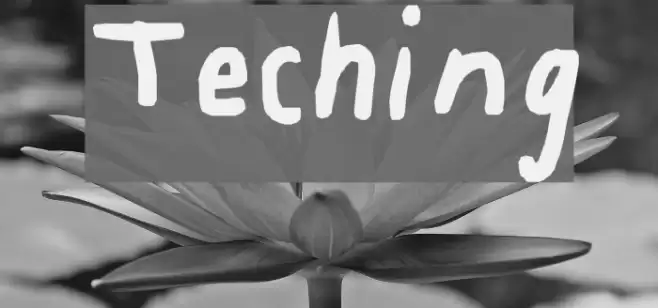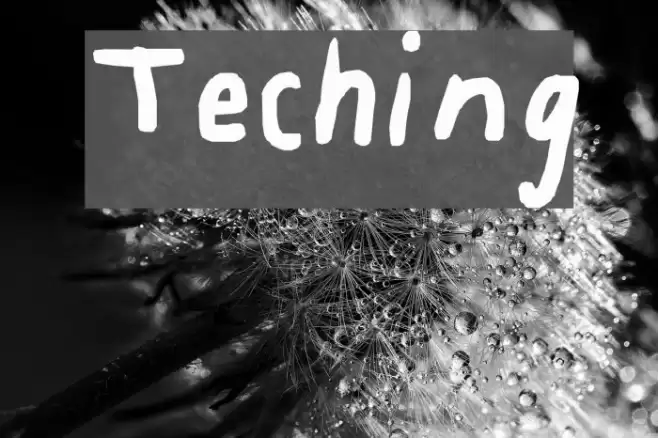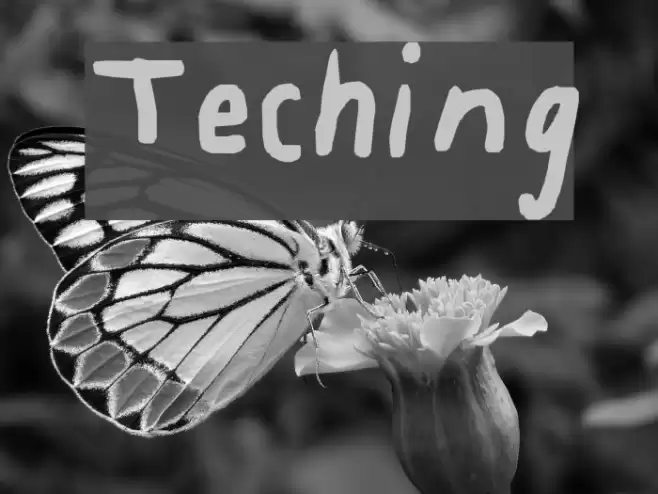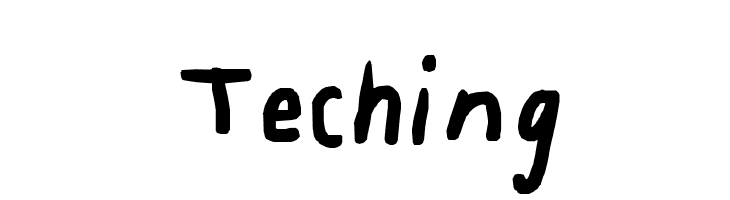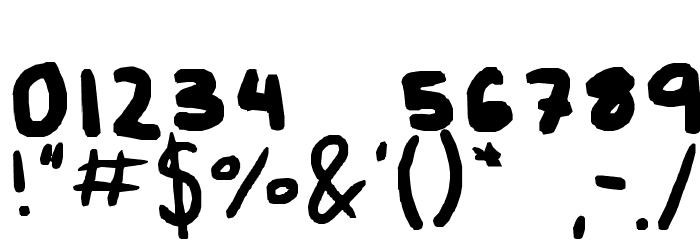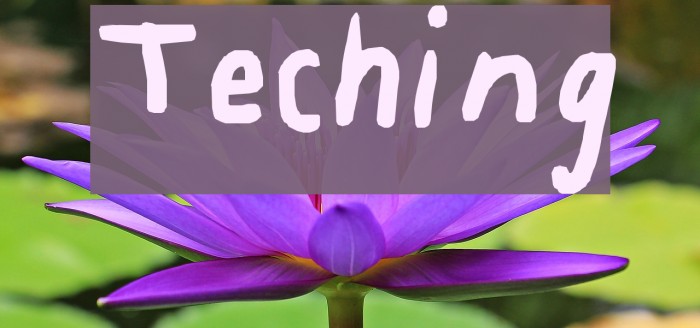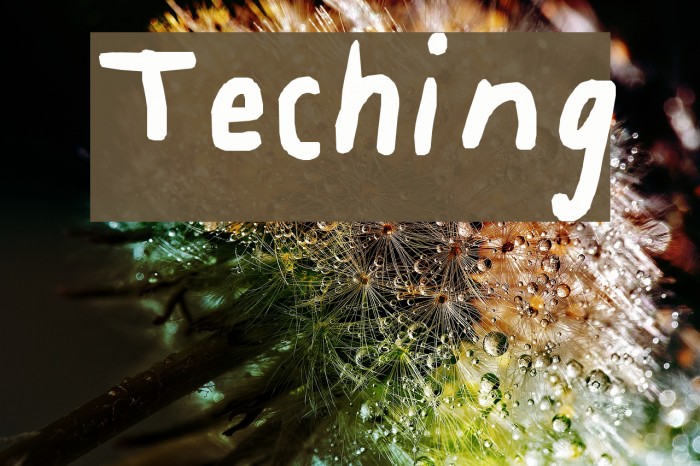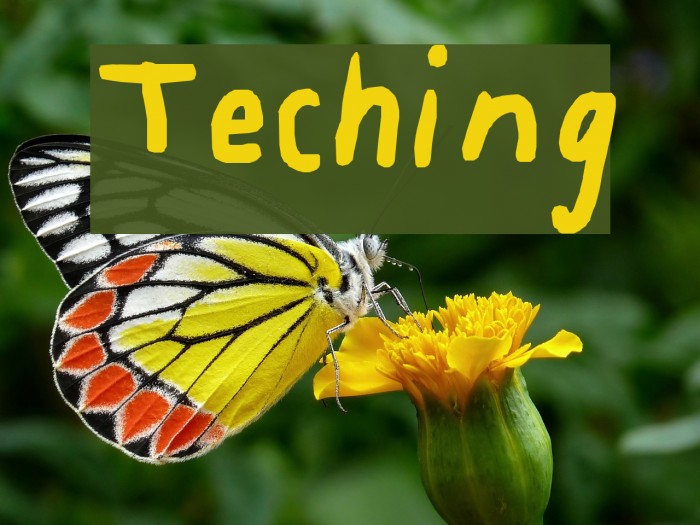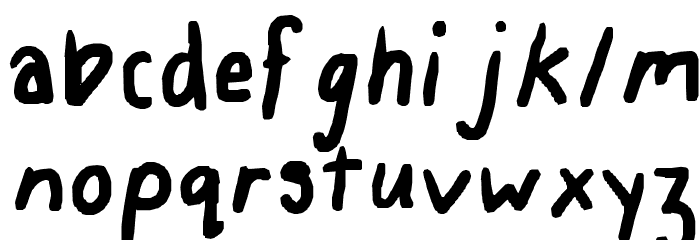
Teching Font
Teching Description
This font features a playful and informal handwritten style, characterized by its irregular and slightly uneven strokes that mimic the natural flow of handwriting. The letters have a casual and friendly appearance, with rounded edges and a slight tilt, giving them a dynamic and lively feel. The uppercase and lowercase letters maintain a consistent style, while the numbers and special characters complement the overall aesthetic with their quirky and approachable design. This font exudes a sense of creativity and spontaneity, making it ideal for projects that require a personal touch.
A playful, handwritten font with a casual and friendly style from Uncategorized fonts.
- Proposed Projects: Ideal for greeting cards, children's books, personal blogs, and creative branding.
- Overall Style: Casual
- Use Case: Logos, Invitations, Informal Communications